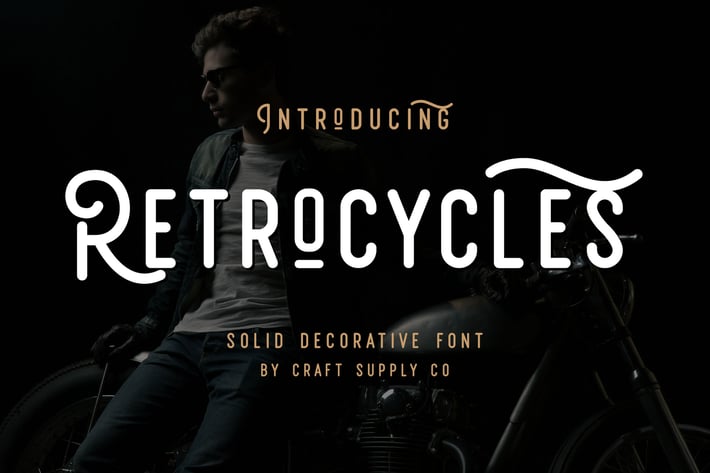
Retrocycles Font
Introducing Retrocycles is solid decorative font. It can be used to create almost all types of design projects like print materials. Just use your imagination, your project will become more alive and look great than ever with Retrocycles Font.
You want to make a greeting card or a package design, or even a brand identity, craft design, any DIY project, book title, wedding font, pop vintage design, retro design or any purpose to make your art / design project look pretty and trendy? Feel free to play with this font!
1. Upper Case & Lowercase
2. Stylistic Alternates
3. Standard Ligatures
4. Numerals & Punctuations (OpenType Standard)
5. Accents (Multilingual characters)